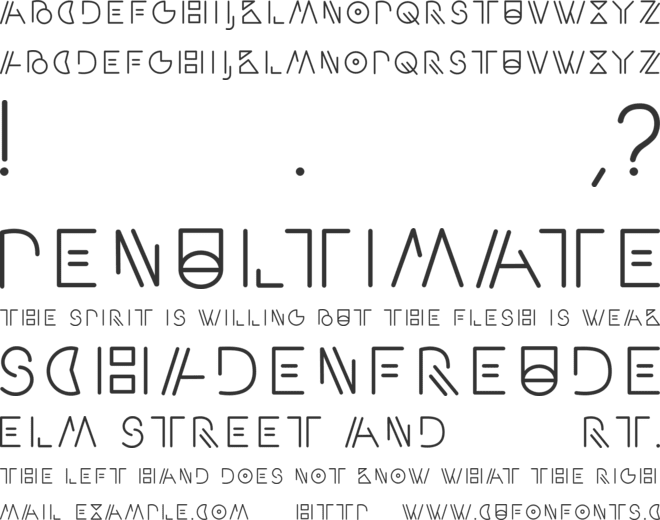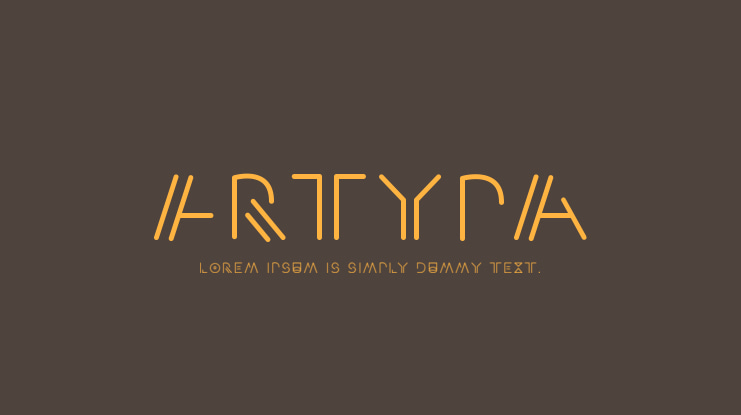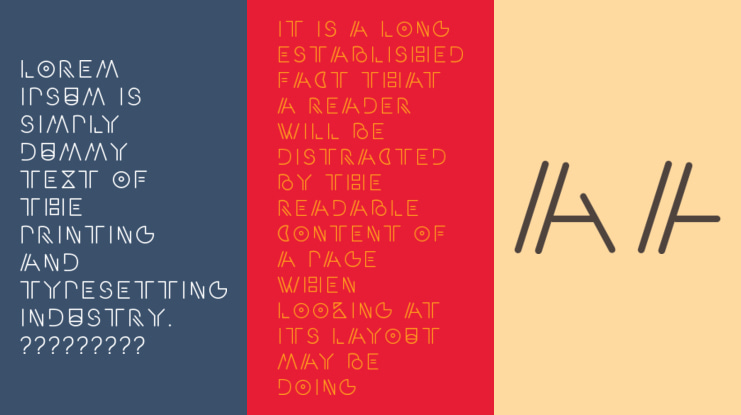
Artypa Font
"ARTYPA" is my latest font project which is free for commercial use.
The font features artistic designed characters for headlines or logos which can be used for anything a little bit more crazy and unique.